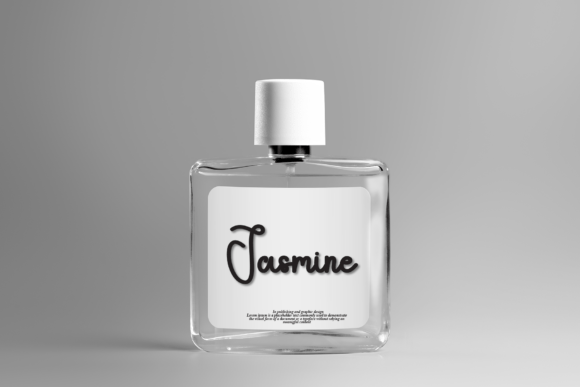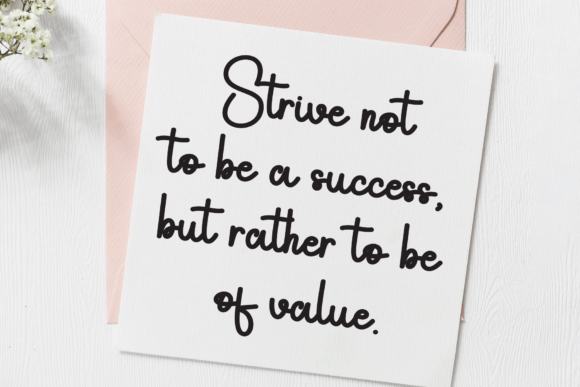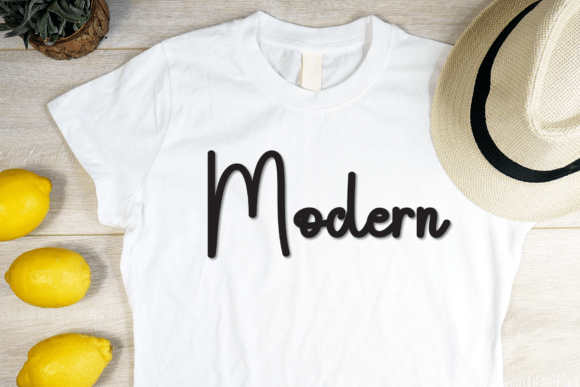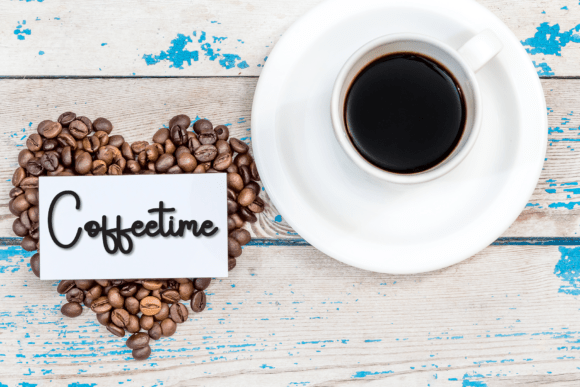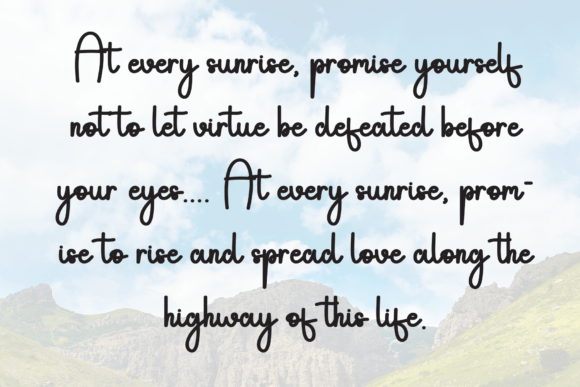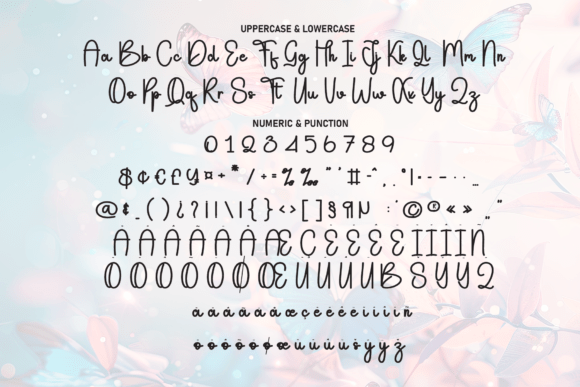
The Magic of Butterfly Font: Elevating Designs with Elegance and Playfulness
I’ll never forget the time I was working on a wedding invitation project, and my client asked for a font that was both elegant and playful. I scoured the internet, tried out countless fonts, but nothing seemed to fit the bill. That was until I stumbled upon Butterfly Font. With its flowing curves and natural rhythm, it captured the essence of what I was looking for – a font that exuded warmth, sophistication, and creativity. In this article, I’ll share my experience with Butterfly Font, its features, and how to make the most of it in your designs.
- 💫 Elegant and playful at the same time – perfect for a wide range of projects, from wedding invitations to social media graphics.
- ✅ Easy to read, even at smaller font sizes, making it versatile for various applications.
- 🎨 Highly customizable with OpenType features, glyphs, and stylistic alternates, allowing for endless creative possibilities.
- 📸 Beautifully crafted with a high level of detail, giving it a premium feel.
- ⚠️ Some users may find the font a bit too ornate for very formal or traditional designs.
- ⚠️ Limited availability of certain characters or languages, so it’s essential to check compatibility before use.
Butterfly Font was designed by a talented typographer who drew inspiration from the delicate wings of butterflies. With a passion for elegant and playful design, the creator aimed to craft a font that would capture the essence of whimsy and sophistication. The result is a beautiful, highly customizable font that’s perfect for a wide range of creative projects.
Q: What type of projects is Butterfly Font best suited for?
A: Butterfly Font is versatile and can be used for various projects, including wedding invitations, branding, social media graphics, and more.
Q: Is Butterfly Font easy to read?
A: Yes, Butterfly Font is designed to be easy to read, even at smaller font sizes, making it perfect for body text and captions.
Q: Can I customize Butterfly Font?
A: Yes, Butterfly Font comes with OpenType features, glyphs, and stylistic alternates, allowing for a high level of customization and creative freedom.